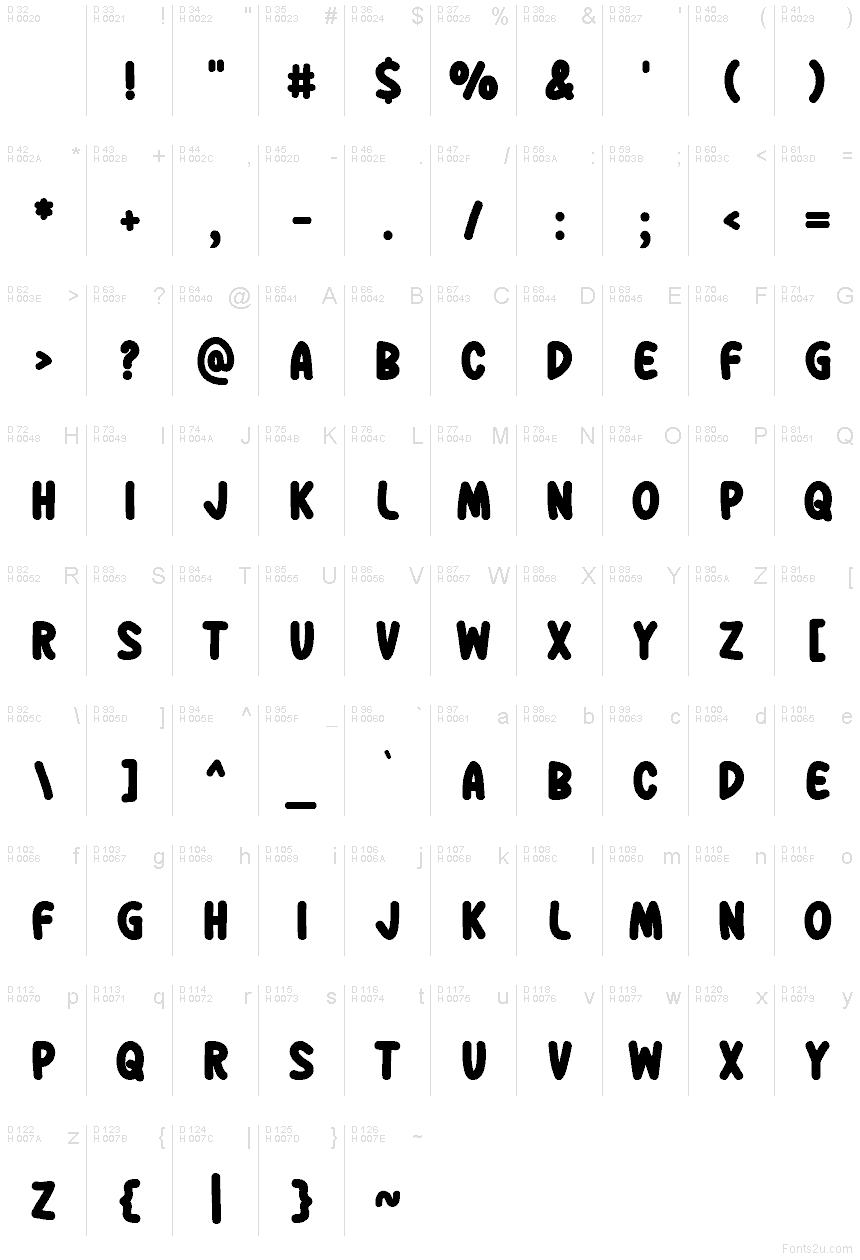
Bell Ring
Bell Ring font by Md Shohail Bhuian is a modern handwritten font with a bold style. It features rounded, thick lines, offering a casual yet refined look suitable for many projects. Its approachable mood works exceptionally well for contemporary branding.
Consider using this free handwritten font in packaging designs, titles, names, invitations, logos, book covers, magazine covers, headings of all kinds including website headers and social media banners. Additionally integrate it into advertising and marketing material.